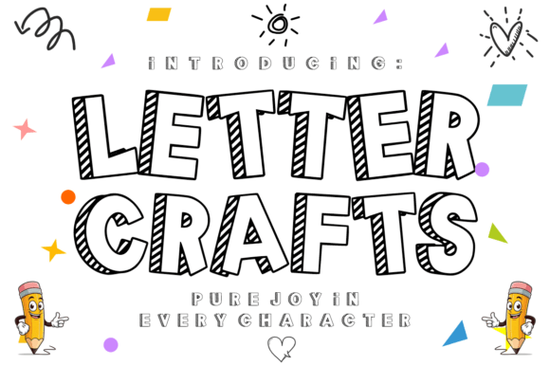
If you're creating cheerful, kid-friendly designs think classroom posters, birthday invitations, or playful branding you’ve probably searched for a font that feels warm and handmade without looking messy. That’s where Letter Crafts Font comes in. With its hand-drawn charm and subtle 3D outline, it mimics the joyful scribbles of a child’s art project while staying clean and legible enough for real-world use.
Designed with bold outlines and a soft shadow effect, Letter Crafts pops against bright or busy backgrounds perfect for coloring books, nursery decor, or social media graphics aimed at young families. Unlike overly polished display fonts, this one leans into imperfection: slightly uneven lines, gentle curves, and friendly letterforms that invite creativity rather than demand perfection.
Who is this font best for?
This font shines in hands-on, heart-led projects:
- Teachers making custom flashcards, bulletin boards, or reward charts
- Parents designing personalized party favors or growth trackers
- Crafters working on vinyl decals, embroidery patterns, or printable wall art
- Print-on-demand sellers creating mugs, T-shirts, or greeting cards with a whimsical vibe
- Small studios building brand identities for children’s products, apps, or educational content
Because it’s a single-style display font (not a full type family), it works best as a headline or accent not body text. But that’s exactly what makes it special: it’s not trying to do everything. It’s built for moments when you want your words to feel like they were drawn with crayons and love.
How does it compare to other playful fonts?
If you’ve browsed Creative Fabrica’s collection, you might already know fonts like Dango, which offers bubbly rounded forms ideal for tech or food branding, or Lumina Inline, known for its elegant inner detailing. Letter Crafts takes a different path it’s less about polish and more about personality.
For retro-inspired projects, you might consider Back to Retro, while sports-themed work could lean into Sports Baseball. And if you need vintage elegance with a handwritten touch, Eleanor offers graceful loops and refined contrast. But none of these capture the unfiltered joy of a child’s drawing quite like Letter Crafts.
Practical tips for using Letter Crafts effectively
To get the most out of this font, keep these ideas in mind:
- Pair it with simple sans-serifs. Let Letter Crafts be the star by combining it with clean fonts like Helvetica, Arial, or Montserrat for supporting text.
- Avoid dark or cluttered backgrounds. Its outlined style needs breathing room light pastels, white space, or solid bright colors work best.
- Use uppercase sparingly. The lowercase letters have more character and bounce; all-caps can feel stiff.
- Add texture thoughtfully. A subtle paper grain or watercolor wash underneath can enhance the handmade feel without overwhelming the design.
Also, remember that because it’s a display font, readability drops quickly at small sizes. Stick to headlines, titles, or short phrases under 10 words for optimal impact.
Is it worth adding to your font library?
If your work regularly connects with kids, families, or early education and you value authenticity over slickness then yes. Letter Crafts fills a specific niche: it’s not just “cute,” it feels human. In a world of algorithmically perfect vectors, that warmth stands out.
Before you download, ask yourself: Does my project need to feel joyful, approachable, and hand-touched? If the answer is yes, Letter Crafts could be your new go-to.
Next step: Test it with a real mockup try setting a phrase like “Let’s Create!” or “Adventure Awaits” over a soft yellow background. If it sparks a smile, you’ve found your font.